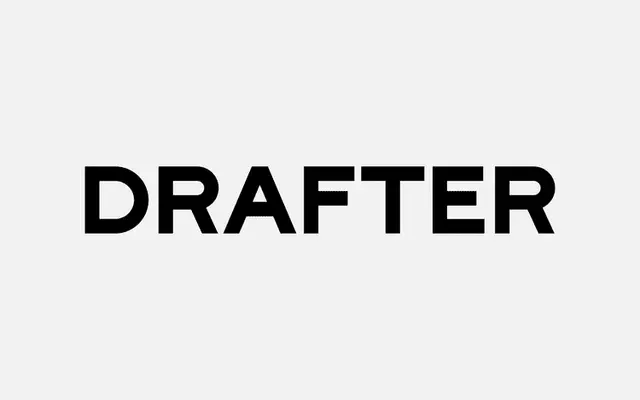
A bold, all-caps display face drawn from hand-painted sign lettering, built for high-impact headline use.
Inspired by the tradition of hand-painted signage, Drafter is a single-weight, all-caps typeface designed to draw attention at large sizes. Its vernacular roots give it a directness suited to posters, packaging and short-form display work. Supplied as a single OTF file, it is a focused, no-frills tool for bold typographic statements.
All-caps, bold display typeface inspired by hand-painted signage, placing it firmly in the display category with vernacular lettering roots rather than a formal sans-serif tradition.